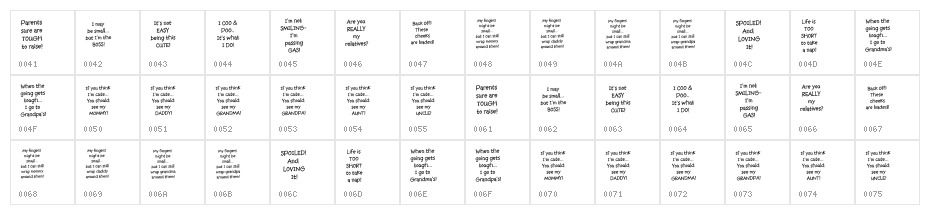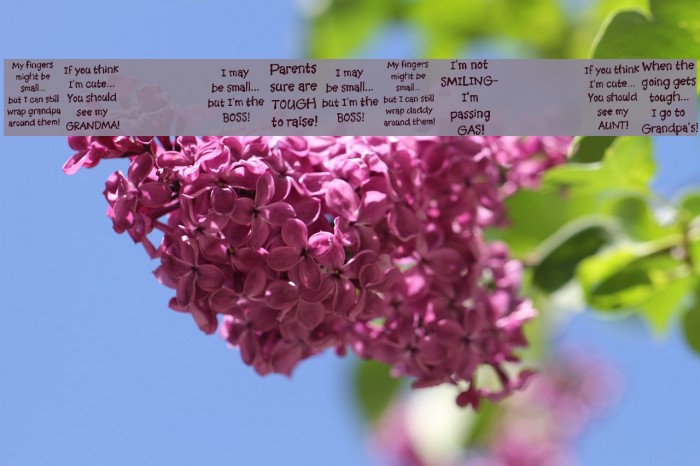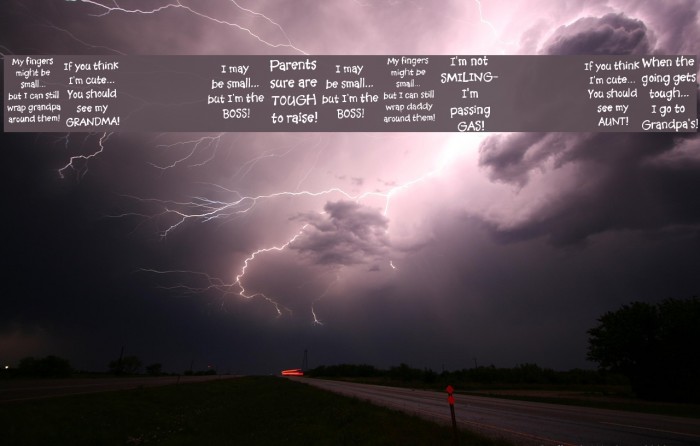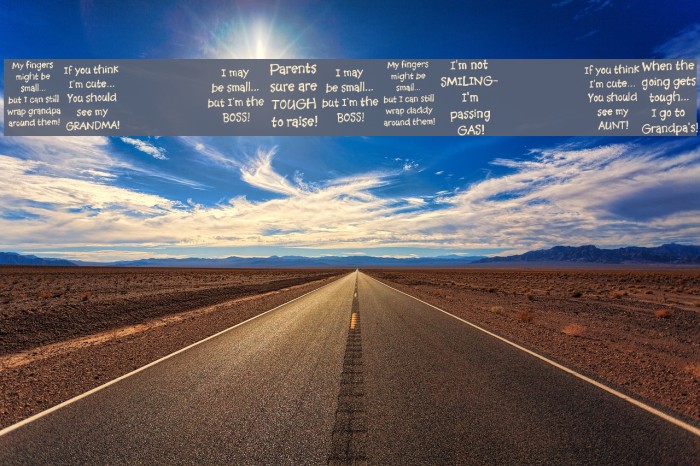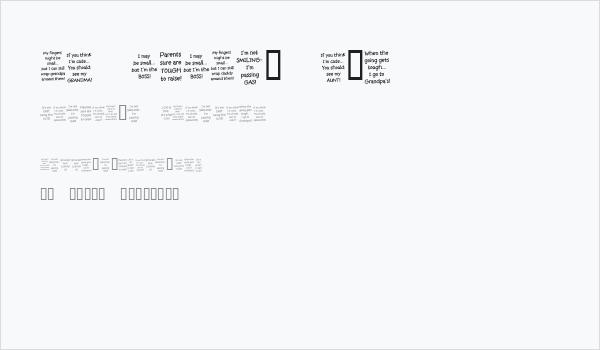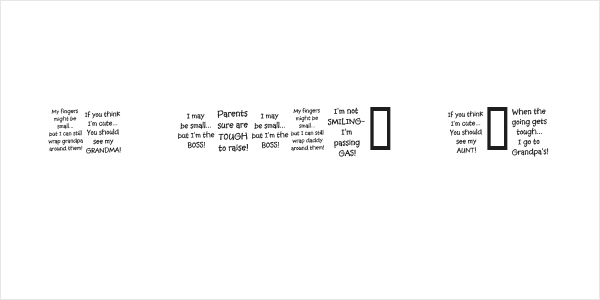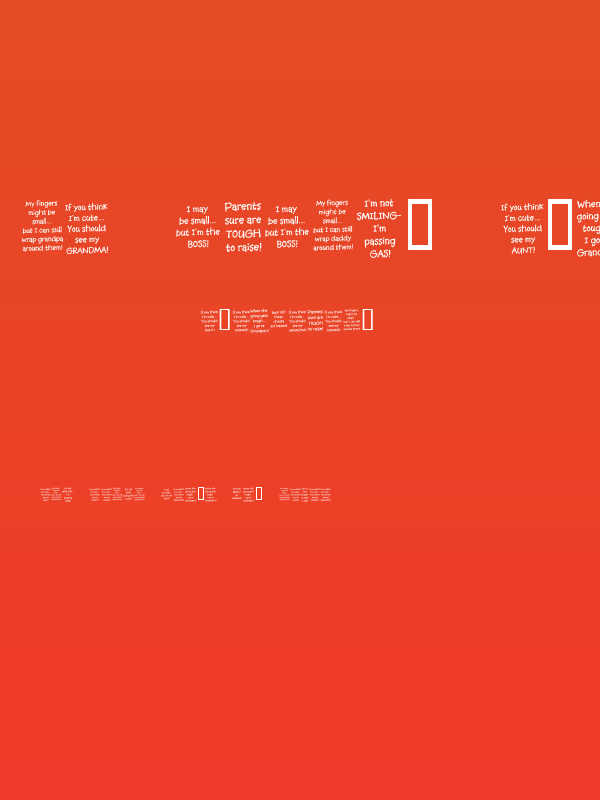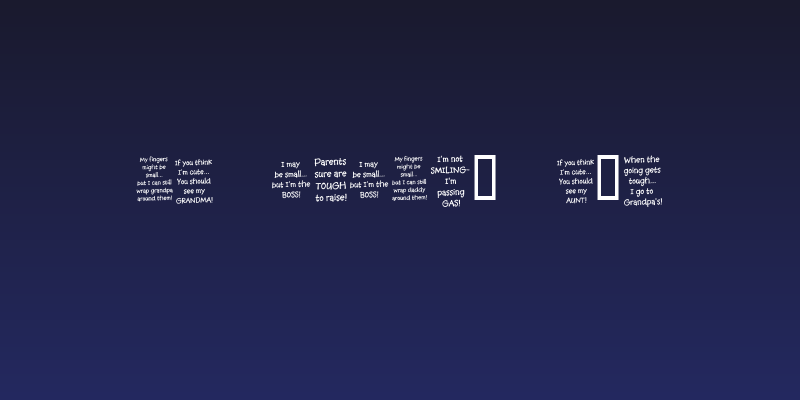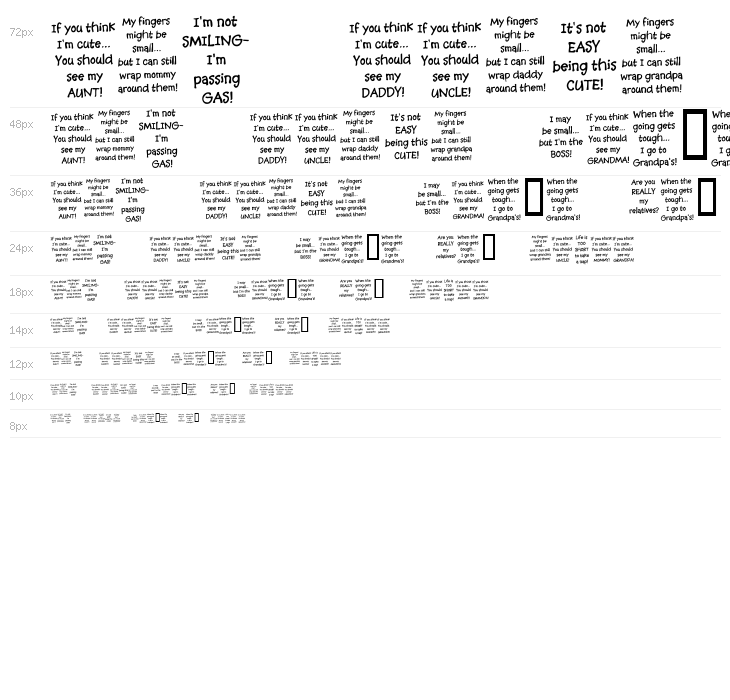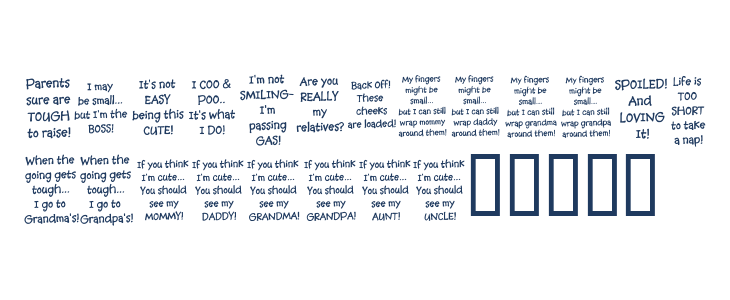
KR Babiez Two Font
KR Babiez Two Description
This playful and whimsical font features a childlike, handwritten style with irregular, rounded characters. The letters have a casual, informal appearance, reminiscent of a child's drawing or doodle. The strokes are uneven, with varying thickness that adds to the charm and innocence of the design. The font includes both uppercase and lowercase letters, numbers, and a selection of special characters. Its unique style makes it suitable for projects that aim to convey a sense of fun, creativity, and youthful energy. The font's design is particularly effective for children's products, playful branding, or any context where a lighthearted and approachable aesthetic is desired.
Overall StylePlayful, Whimsical
Use CaseHeadlines, Logos, Children's products
Proposed ProjectsIdeal for children's books, playful branding, educational materials, and creative projects.